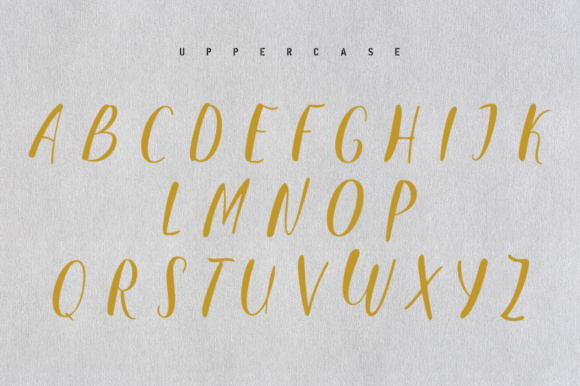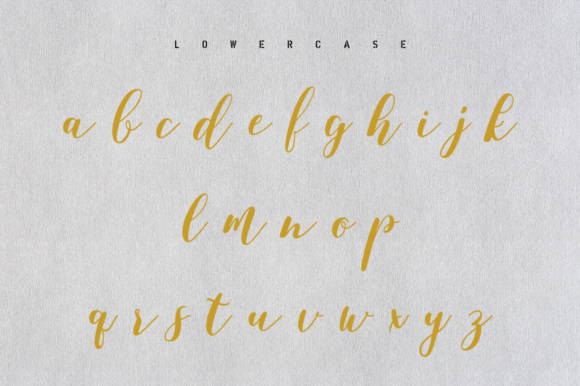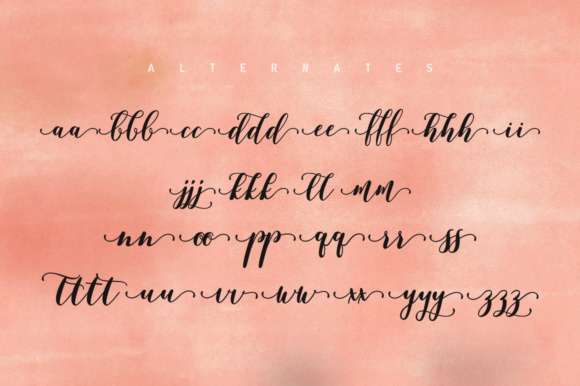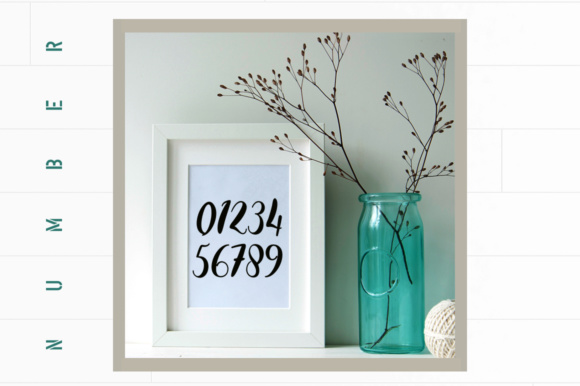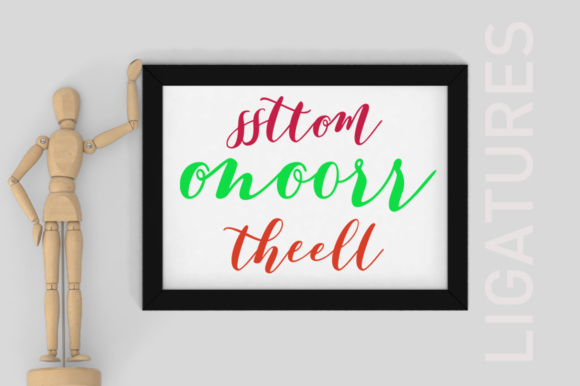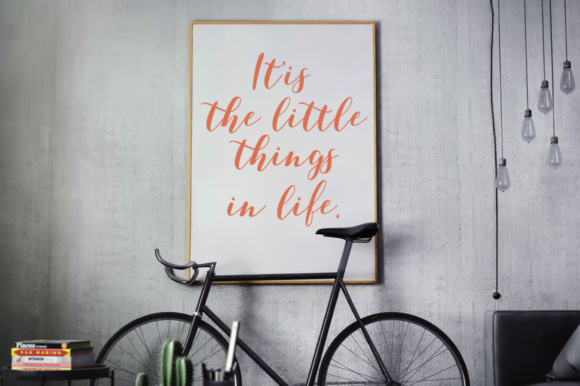
Introduction to Malicute Script Font
Have you ever been working on a design project, pouring your heart and soul into it, only to realize that it’s missing that perfect finishing touch? You know, the one that elevates it from good to great? For many designers, that touch comes in the form of a beautiful font, and today we’re excited to introduce you to one that’s sure to become a favorite: the Malicute Script Font.
With its smooth lines and varying baseline, the Malicute Script Font is a modern calligraphy font that exudes classic elegance. Whether you’re working on a high-quality design project or just need a reliable design resource, this font is sure to impress. Plus, it’s a free download, making it an accessible addition to any creative project. From headings and signatures to logos and wedding invitations, the Malicute Script Font is a versatile choice that’s sure to bring a touch of sophistication to any design.
- High-quality script font perfect for creative projects, offering a unique and elegant touch.
- The font features a beautiful, cursive script design with a high level of detail, making it ideal for invitations, quotes, and other creative applications.
- Malicute Script Font is a unique and creative design element that can add a personal touch to any project, from wedding invitations to social media graphics.
Honest Review: Malicute Script Font
I recently had the chance to work with the Malicute Script Font, and I must say it’s a lovely addition to any design project. As a high-quality design resource, this font has a lot to offer.
- ✨ High-quality, detailed lettering that looks great on a transparent background.
- ✨ Beautifully crafted script font that’s perfect for creative projects that need a touch of elegance.
- ⚠️ The font is a script font, which means it’s not ideal for projects that require clear, easy-to-read text.
- ⚠️ The font may not be suitable for large blocks of text, as the intricate details can become overwhelming.
Overall, I’m really impressed with the Malicute Script Font. It’s a great addition to any design library, and it’s perfect for projects that require a touch of sophistication and elegance.
For the best results, use Malicute Script Font on a transparent background or a light-colored background to make the text stand out. You can also experiment with different font sizes, colors, and styles to create a unique look.
Malicute Script Font is perfect for wedding invitations, birthday cards, social media graphics, and other creative projects where a beautiful, high-quality font is needed. It’s also a great resource for designers and artists looking for a unique font to add to their design portfolio.